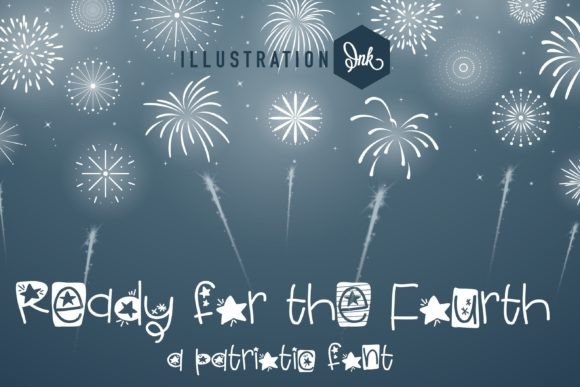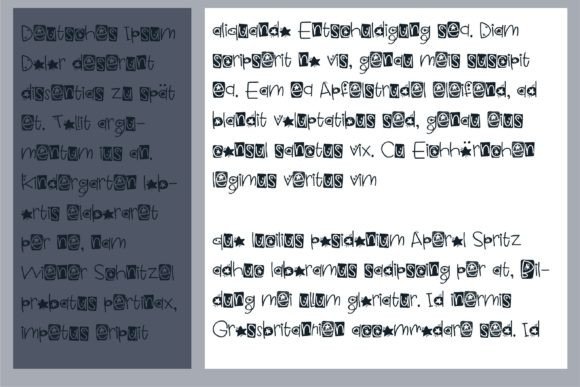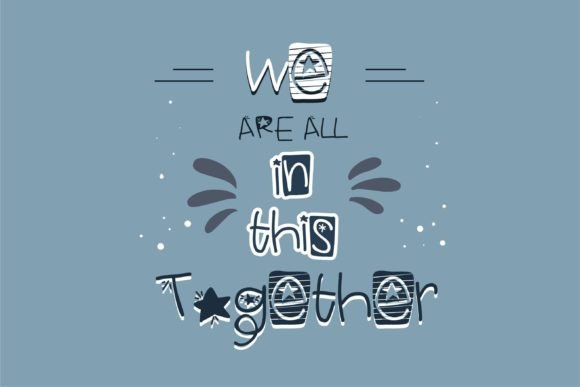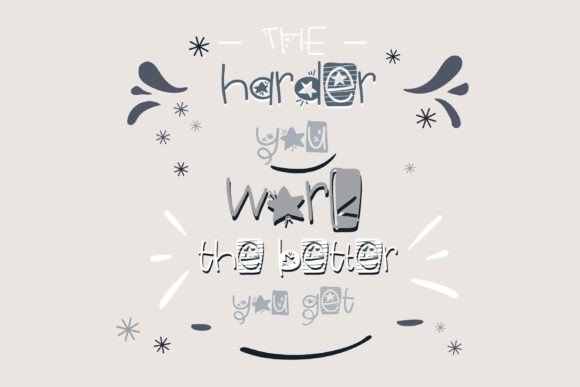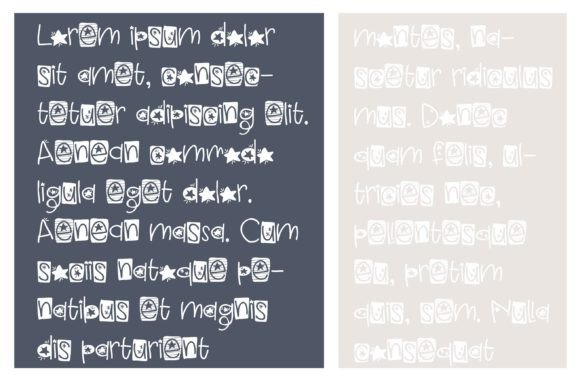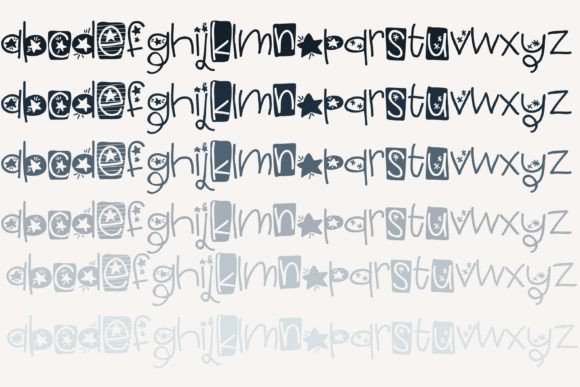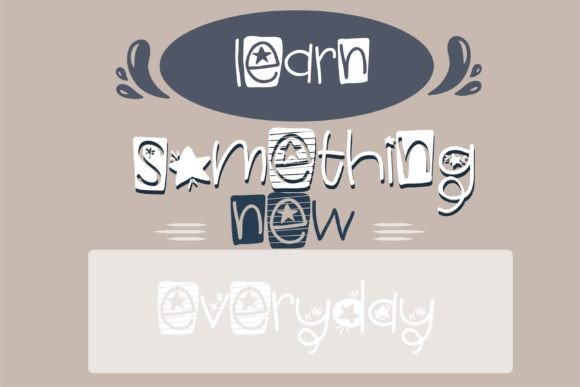
Ready for the Fourth Font
About Ready for the Fourth Font
“Ready for the Fourth Font: Fun and Patriotic Display Typeface
Introducing ‘Ready for the Fourth,’ a playful and patriotic display font designed to add a touch of fun and festivity to all your Independence Day projects. Whether you’re working on banners, posters, invitations, or any other creative endeavor related to Independence Day, this font is a great choice. ‘Ready for the Fourth’ is not just a typeface; it’s a design asset that brings a sense of patriotism and celebration to your work.
The fun and patriotic flair of ‘Ready for the Fourth’ shines through, making it an excellent choice for various creative applications related to Independence Day. The display typeface exudes a playful and festive vibe, perfect for capturing the spirit of celebration.
For Independence Day projects such as banners, posters, and invitations, ‘Ready for the Fourth’ becomes a standout choice, infusing a sense of fun and patriotism into your text. The font’s bold and playful style contributes to a visually appealing and memorable design.
The versatility of ‘Ready for the Fourth’ extends to a wide array of design applications, making it an ideal choice for any project that requires a festive and patriotic touch. The font’s display style enhances the overall aesthetics, creating a visually pleasing and celebratory experience.
In conclusion, ‘Ready for the Fourth’ is more than just a typeface; it’s a design companion that brings a fun and patriotic spirit to your creative toolkit. Let ‘Ready for the Fourth’ be the artistic touch that adds a sense of celebration to your Independence Day projects. Embrace the playful and patriotic charm of ‘Ready for the Fourth,’ and watch as it transforms your ideas into visually enchanting and memorable experiences.”